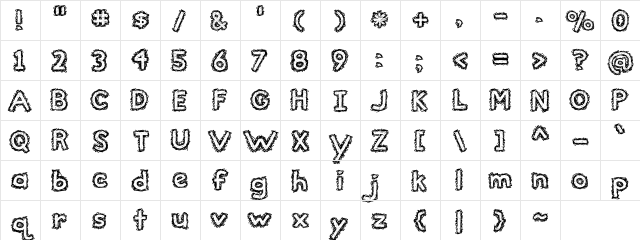
the beautiful ones is a composed and adaptable typeface that performs quietly and consistently across a wide range of design contexts.
Pro Tip: Use the beautiful ones in both headline and body roles to test its range before committing to a single application.